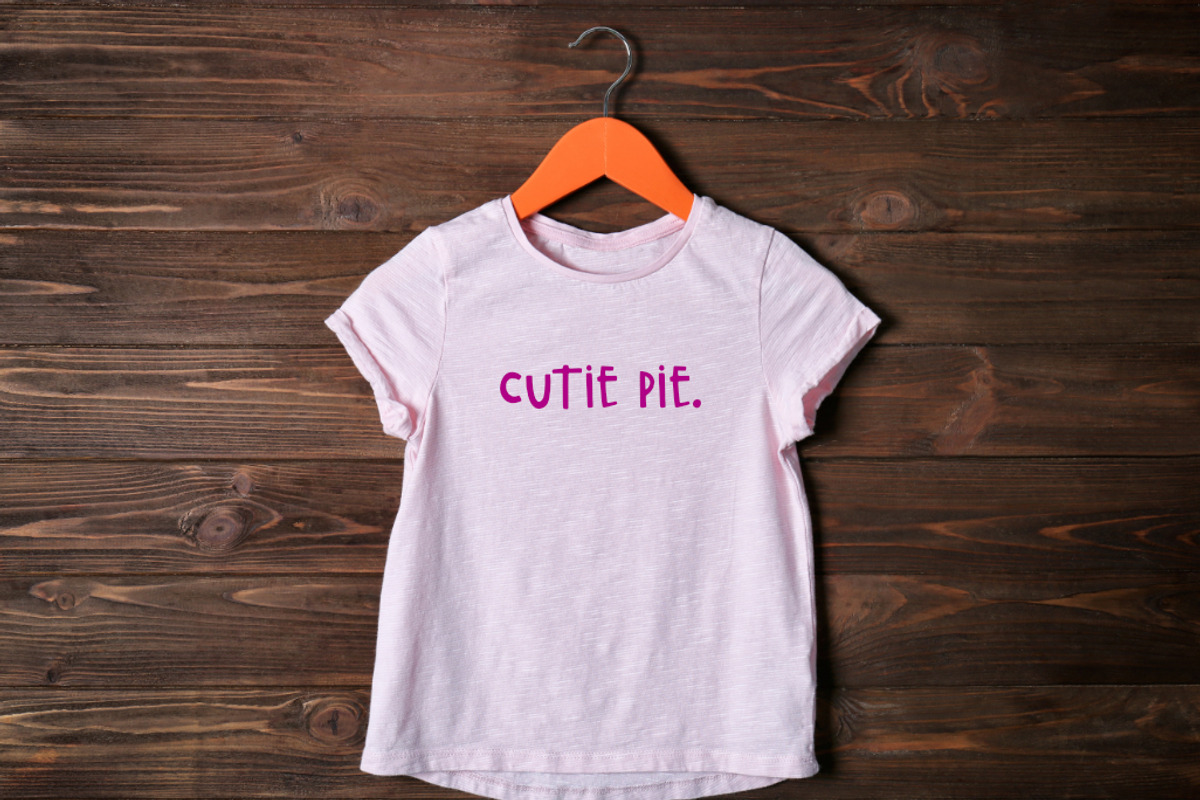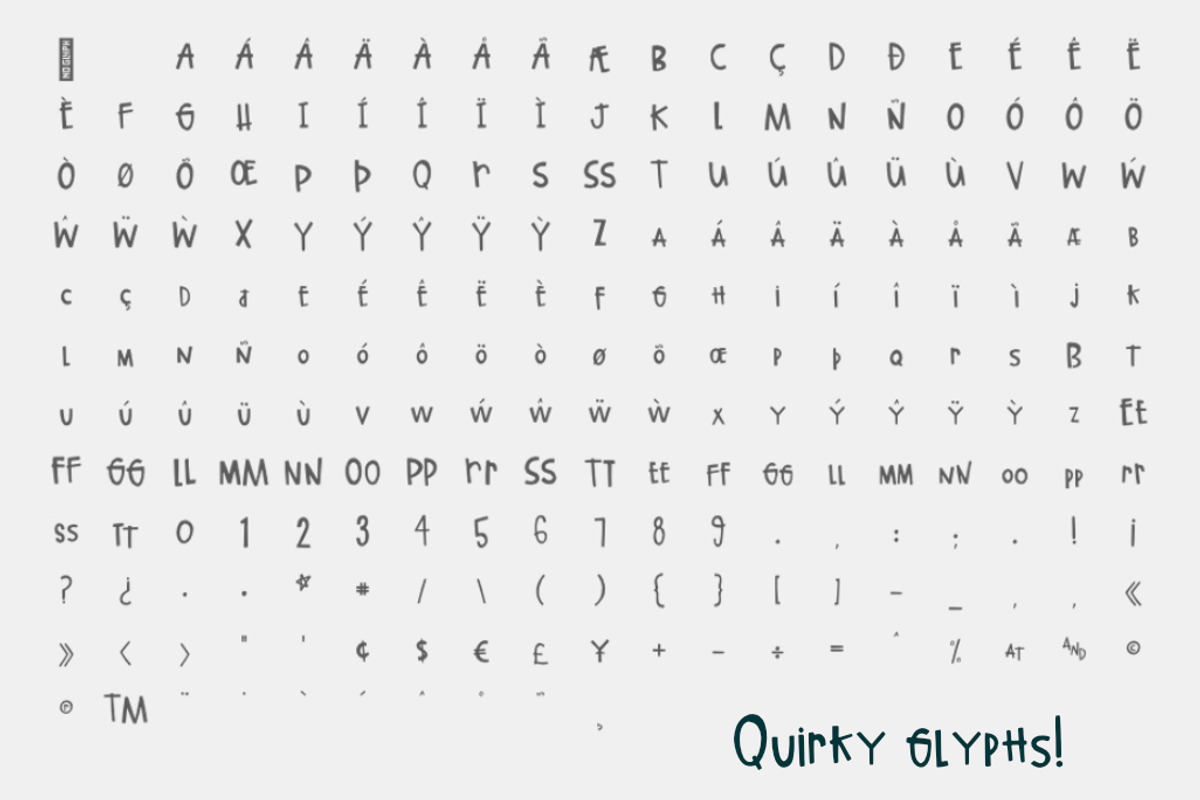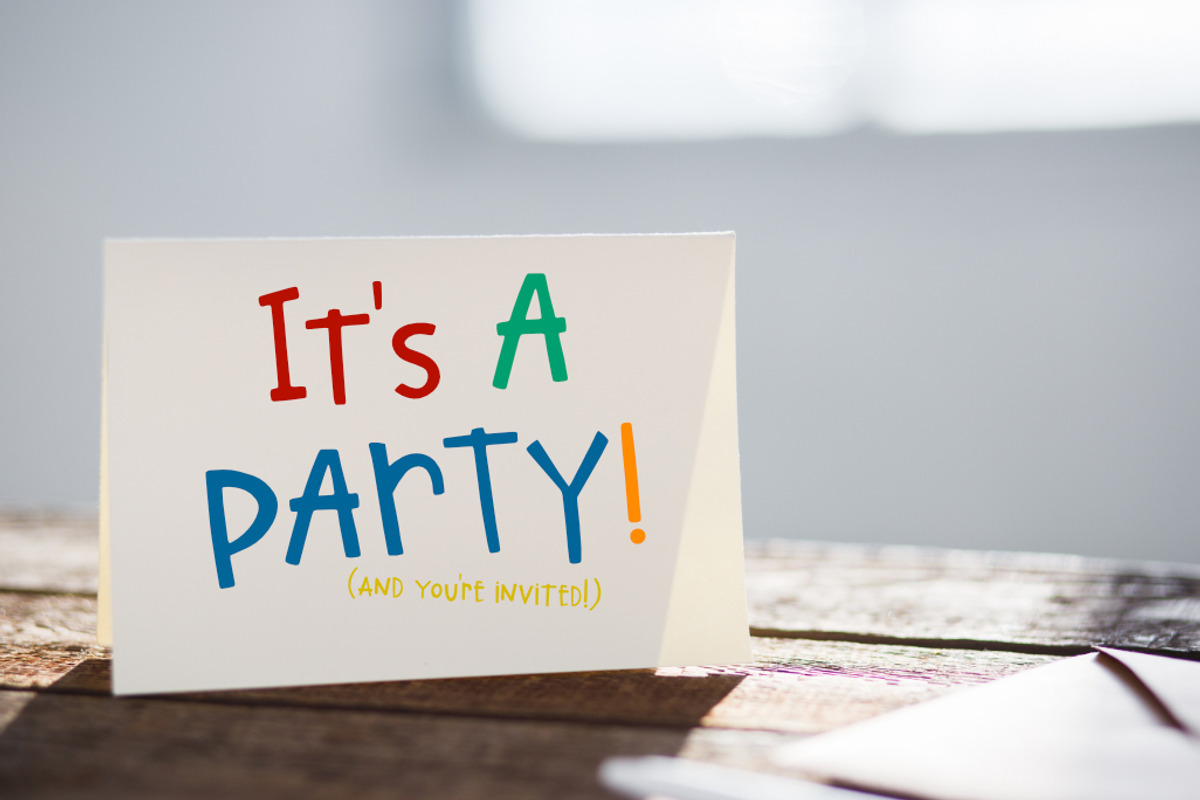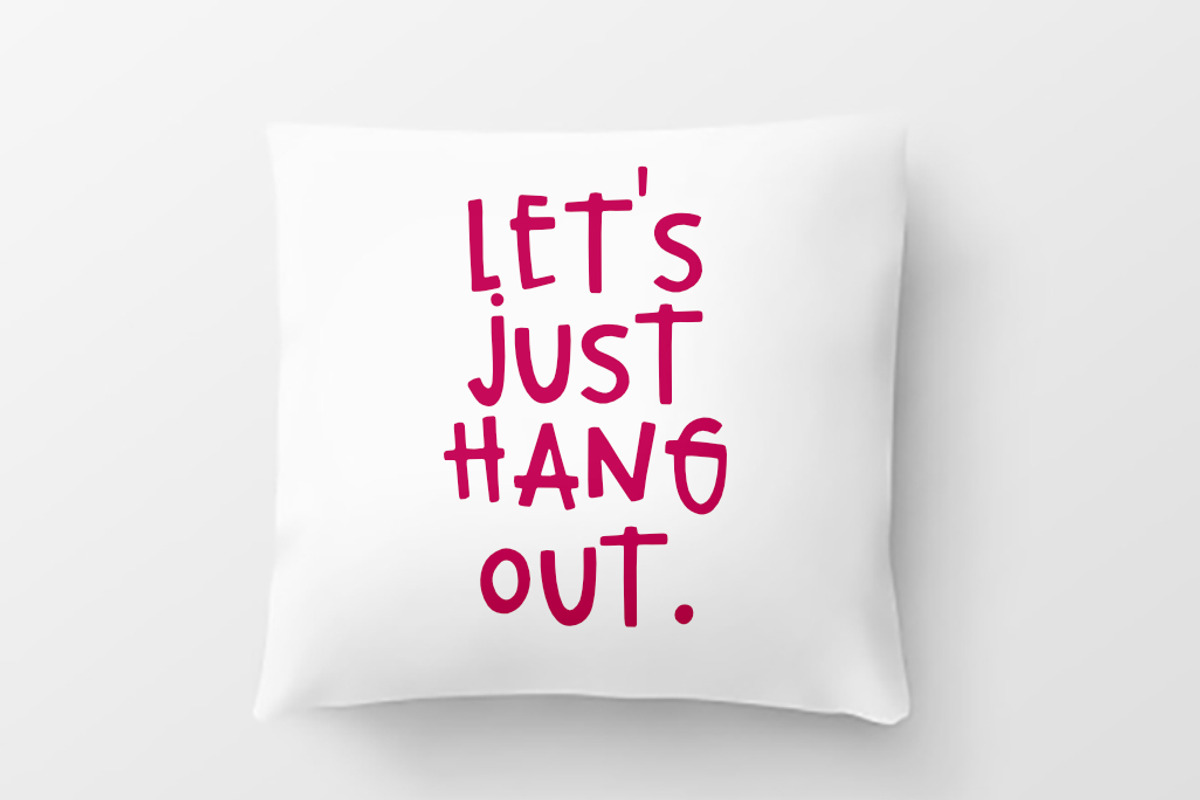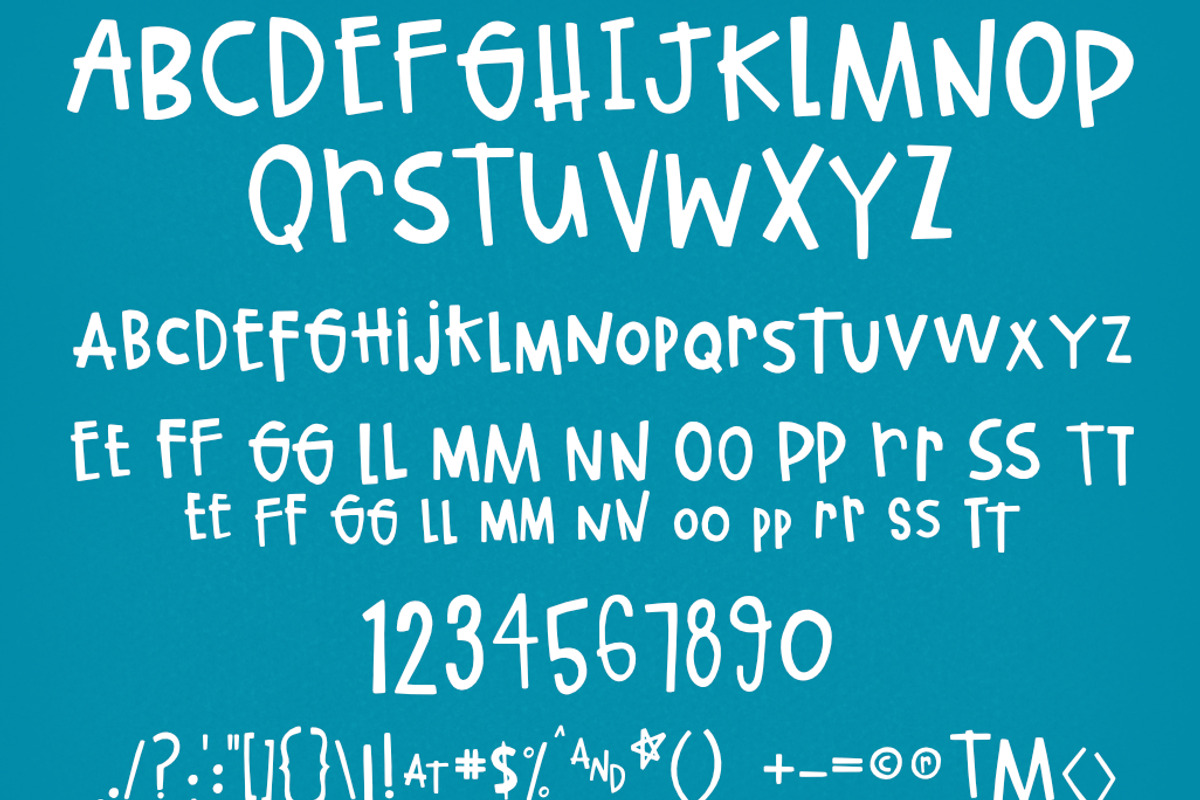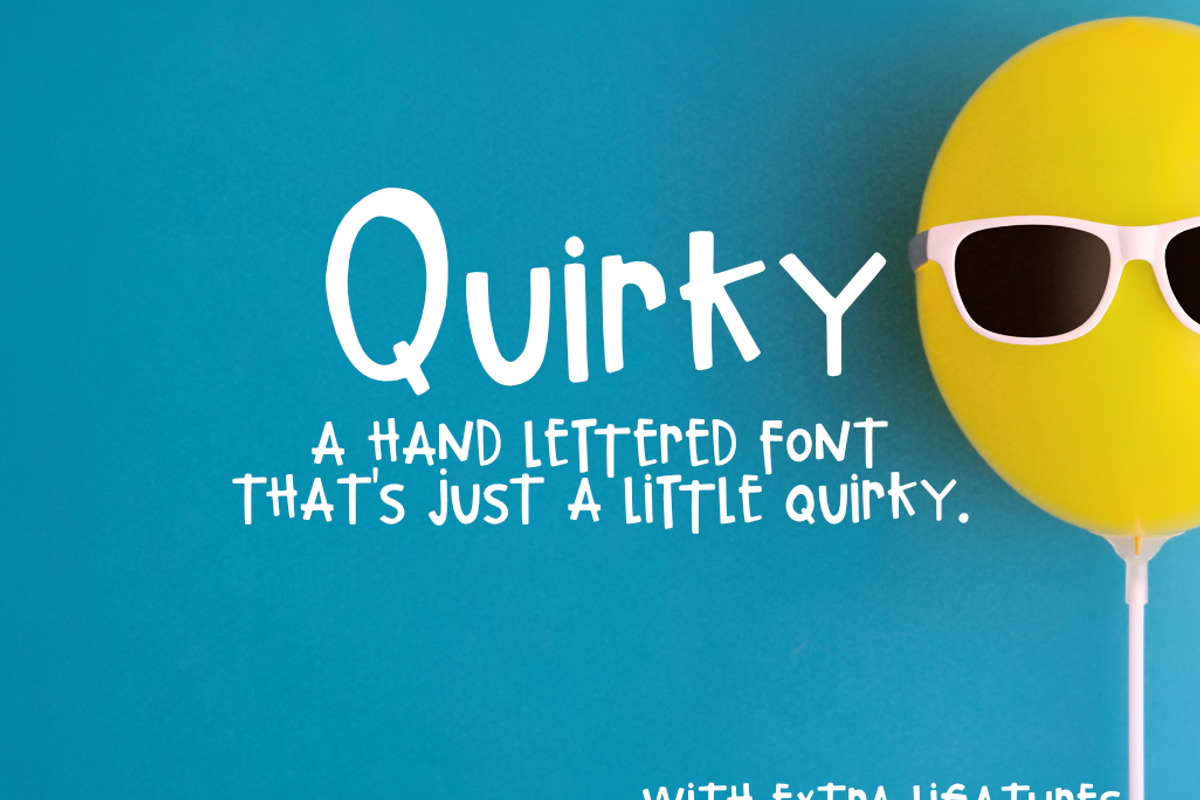
Quirky Hand-lettered Font
Inspired by my passion for hand-lettering, Quirky is a chunky, clean, and fun font that looks great on greeting cards, perfect on mugs and combines seamlessly on just about any hand lettered project that comes your way.
Font includes:
- UPPERCASE
- lowercase
- Numbers & Symbols
- Western European Glyphs (Please test your characters in the font previewer below before purchase.)